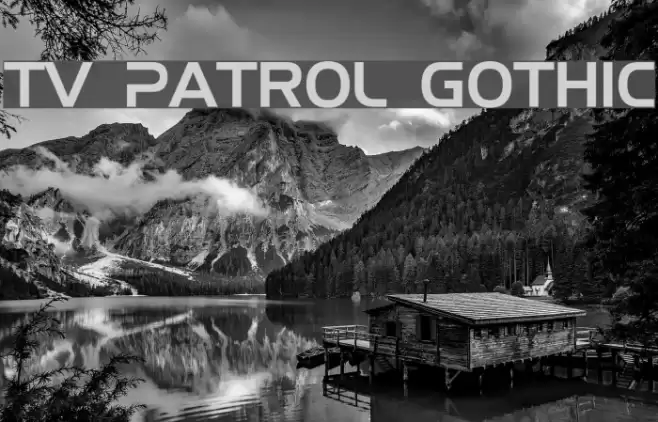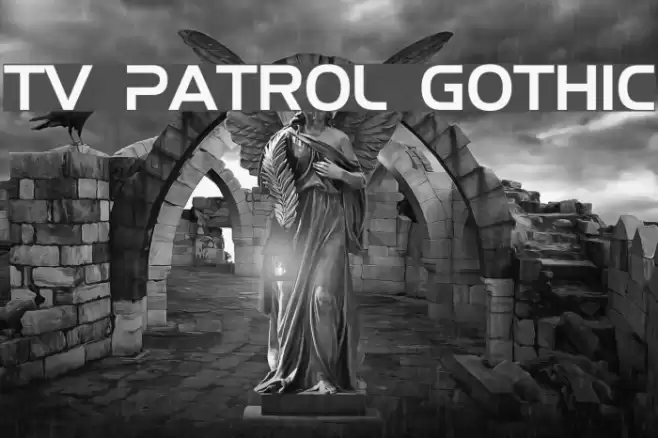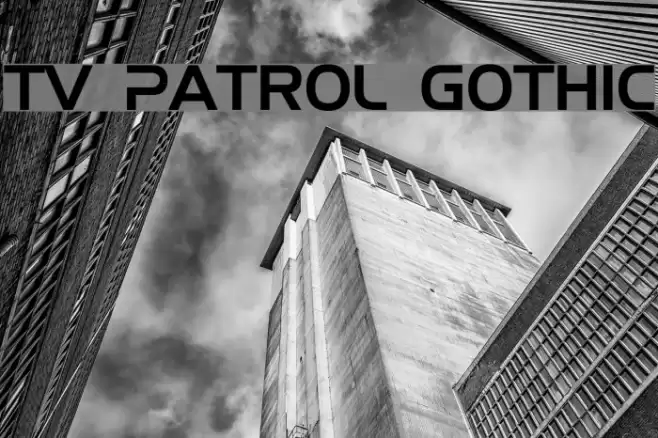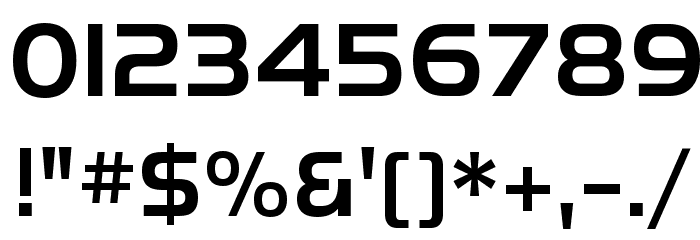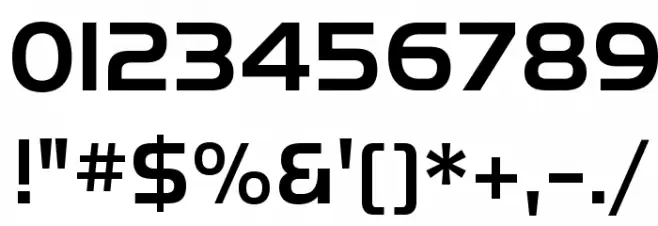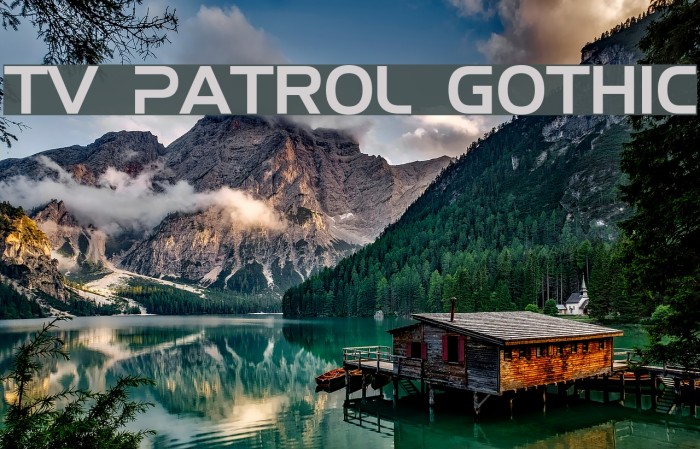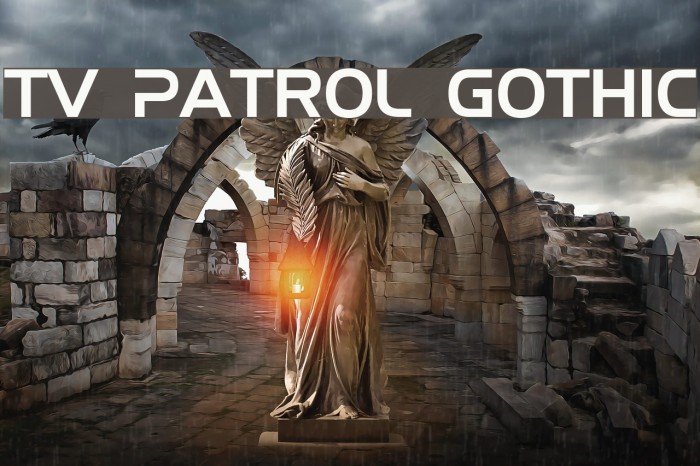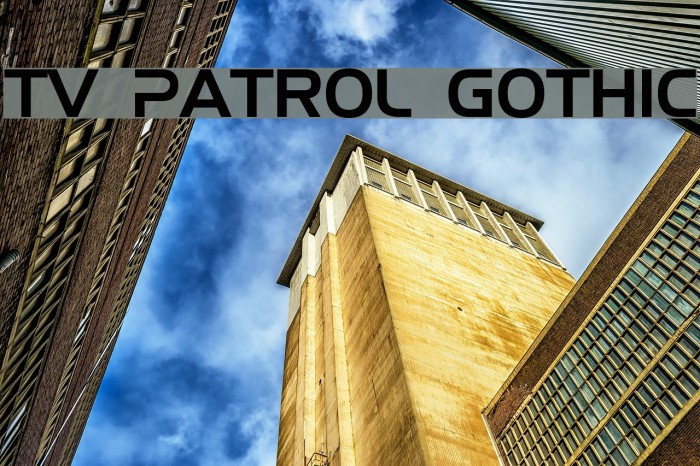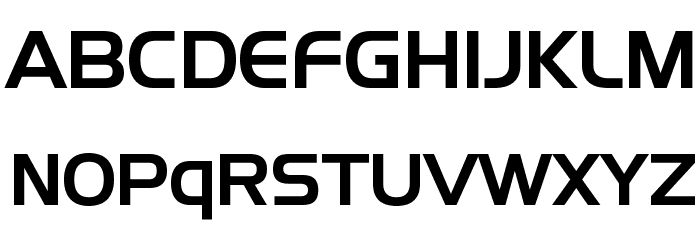
TV Patrol Gothic Font
TV Patrol Gothic Description
This font exhibits a bold, modern style with a geometric sans-serif design. The characters are uniform in width, providing a clean and structured appearance. The uppercase letters are particularly striking, with a consistent height and width that enhances readability. The lowercase letters maintain the same geometric precision, offering a cohesive look across different text sizes. Numbers are clear and distinct, making them suitable for both digital and print media. Special characters are well-defined, ensuring versatility in various applications. The overall design is sleek and contemporary, ideal for projects that require a modern aesthetic.
A bold, geometric sans-serif font with a modern and structured design from Uncategorized fonts.